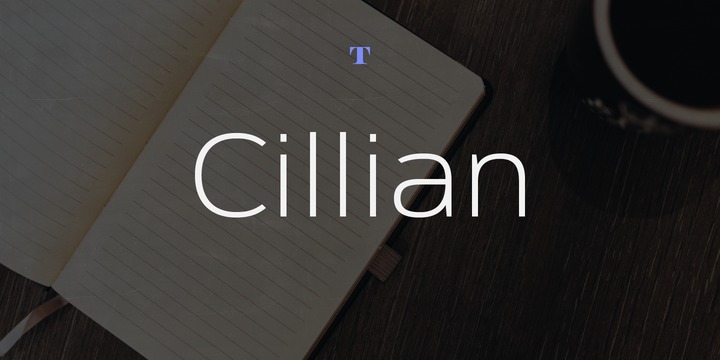
Cillian
Cillian Sans Serif Font
Cillian is suited for any display and text use. It could easily work for signage, corporate as well as for editorial design.
Includes two weights in Roman. Cillian comes in OpenType format, and covers a large range of languages.